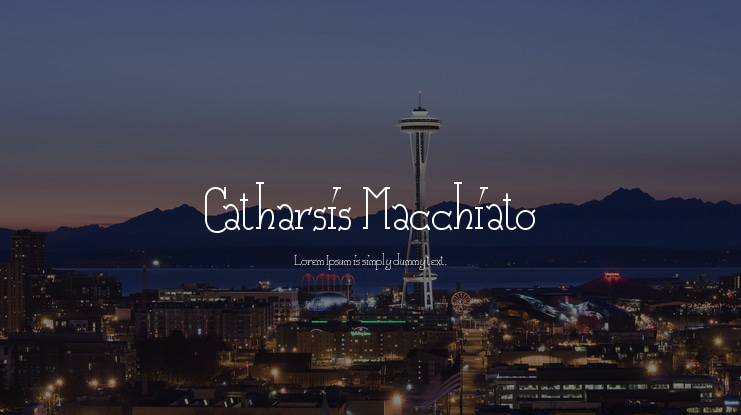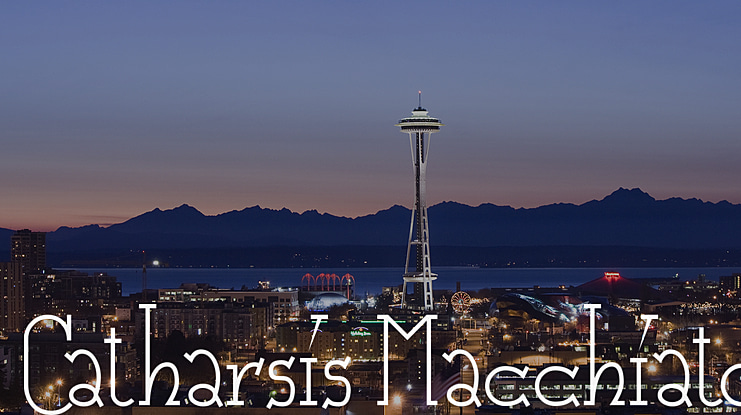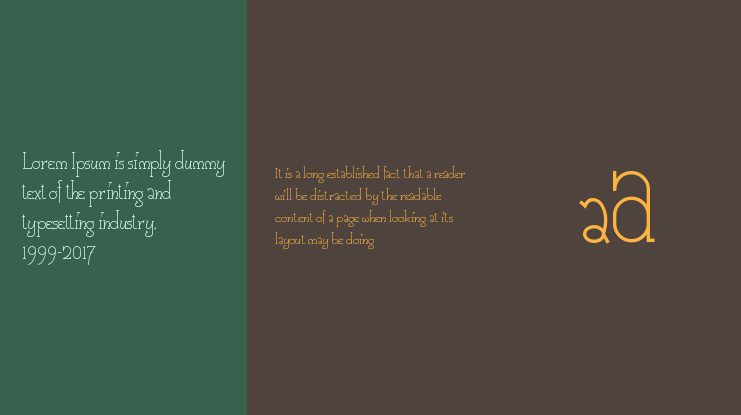
Catharsis Macchiato Font
This font is inspired by the ubiquitous cute and trendy espresso cafés in New Zealand. It's intended for the logo and menu of such a café, but I'm sure you can find many other uses for it.
The most common non-English languages are supported, and there is even a selection of two-character ligatures to spice up the typography. They don't appear by themselves as with Zapfino, though, you'll have to select them yourself. They're mapped onto rarely-used characters of the US Mac keyboard.